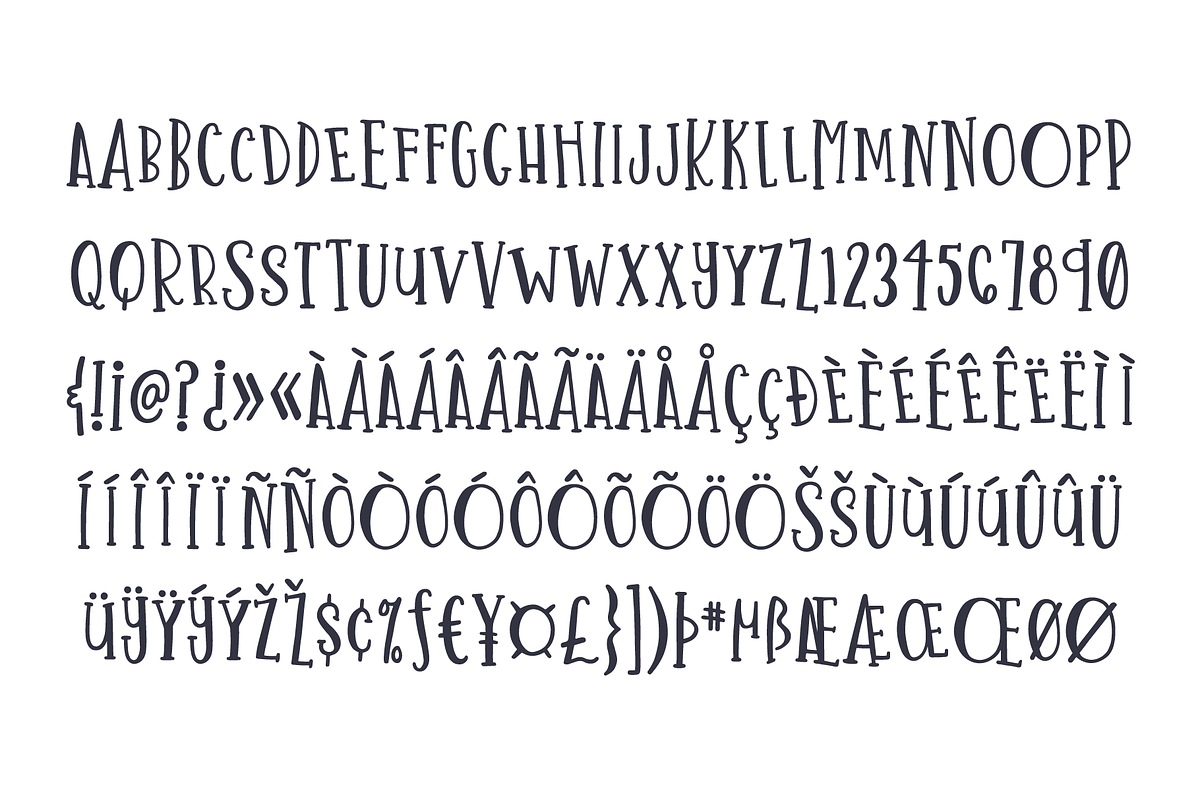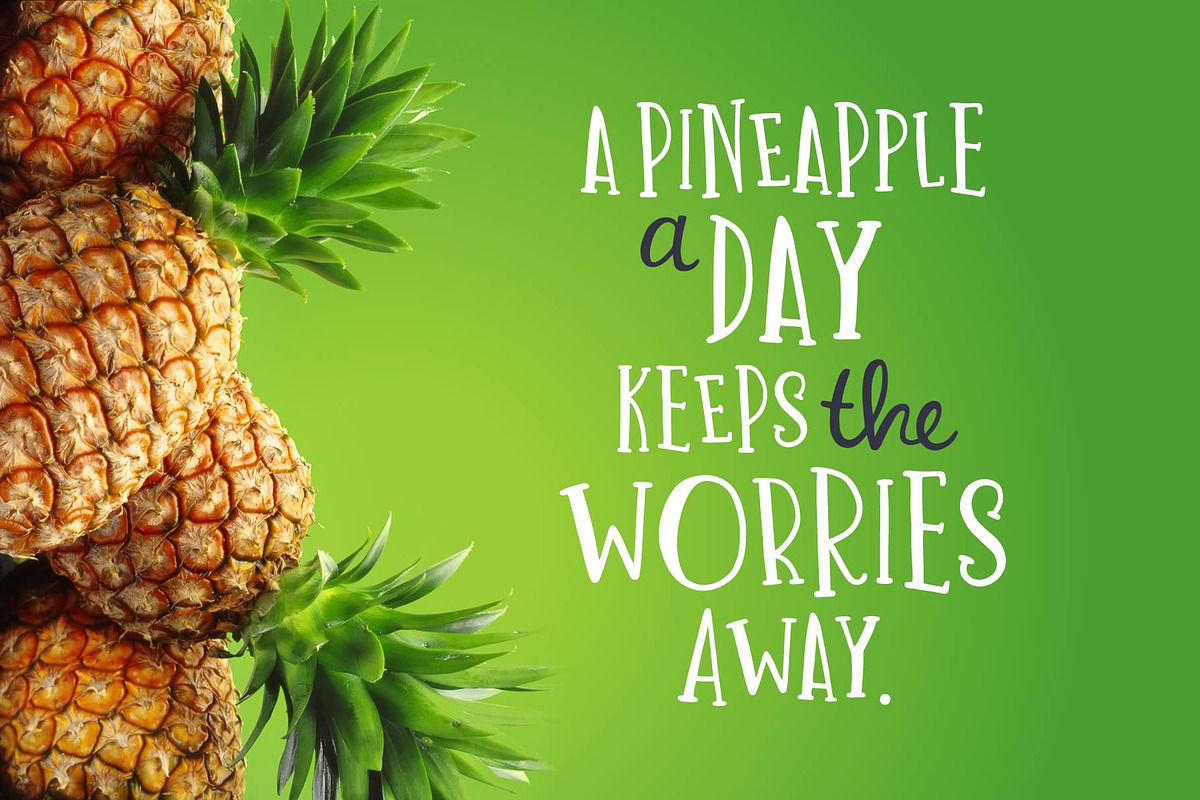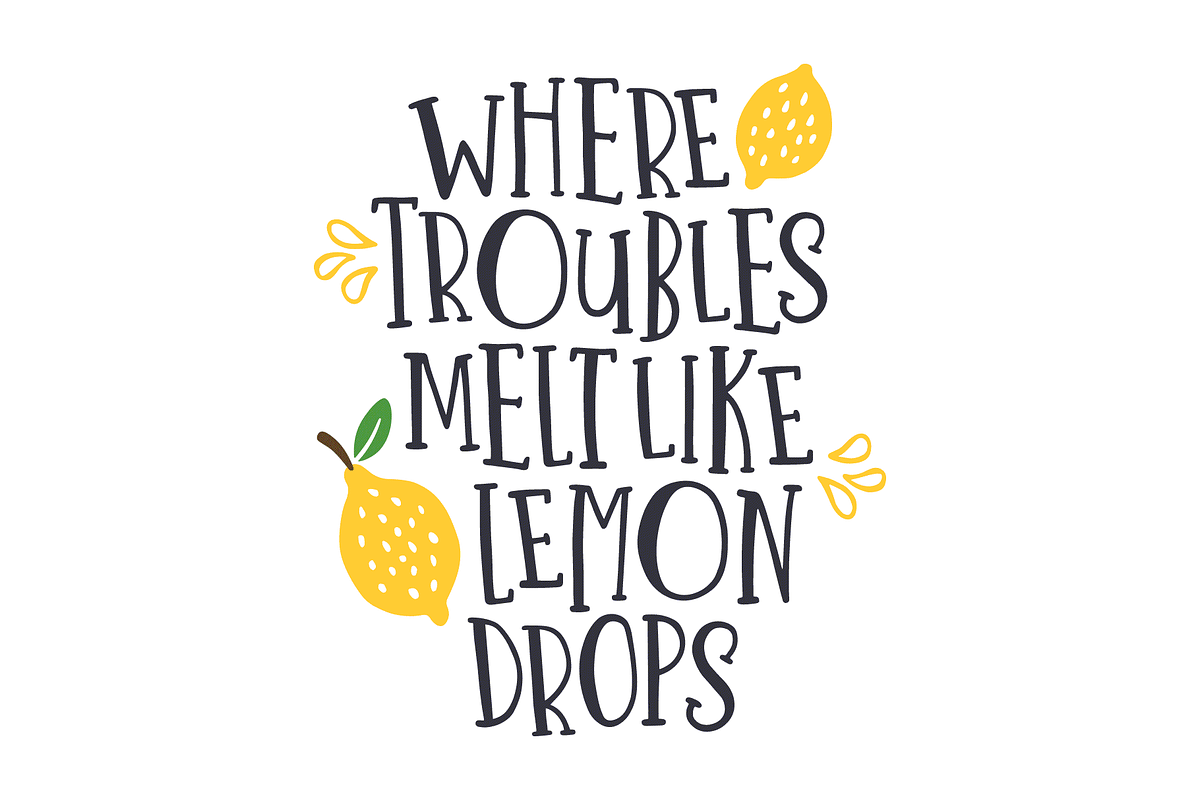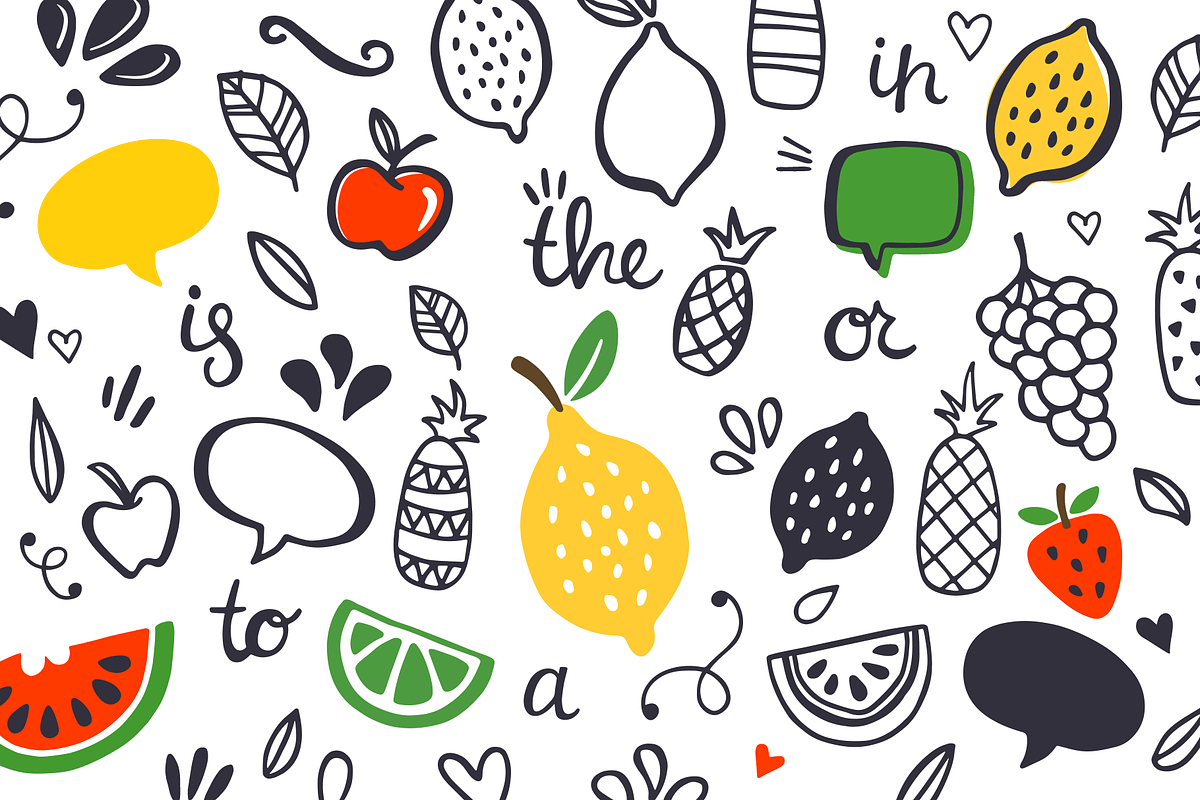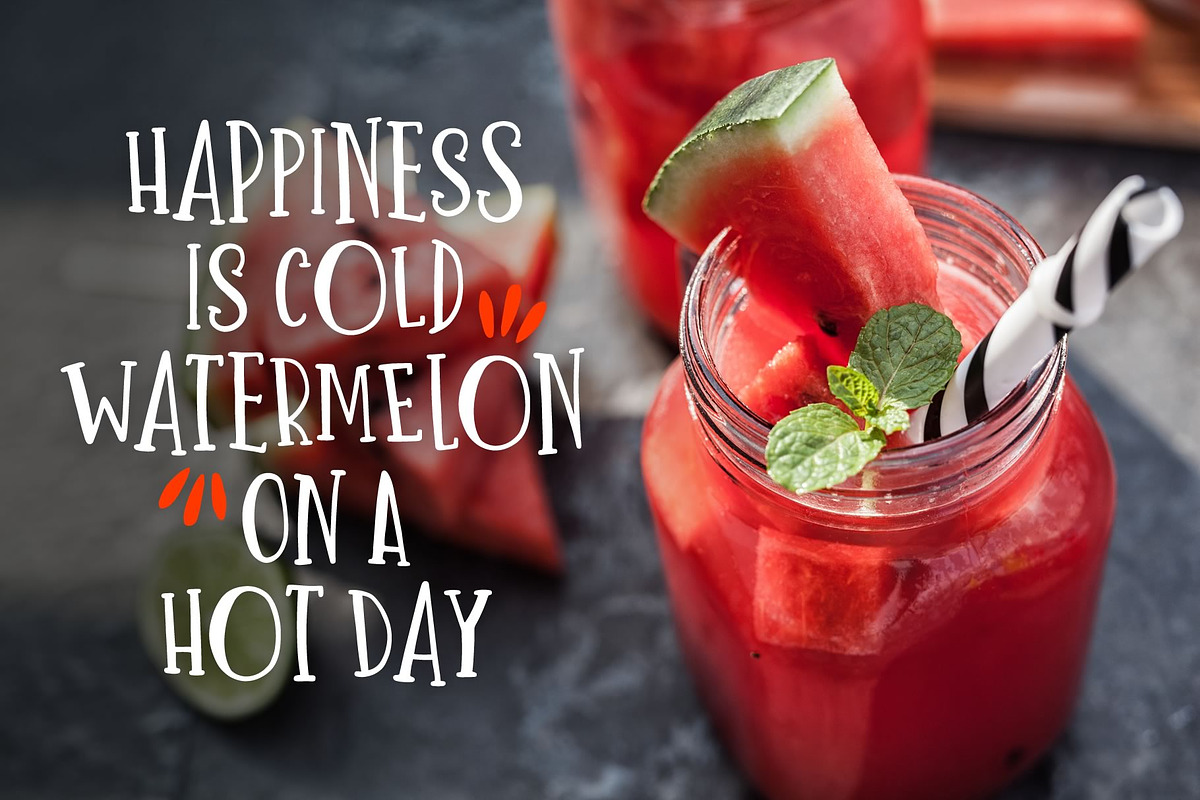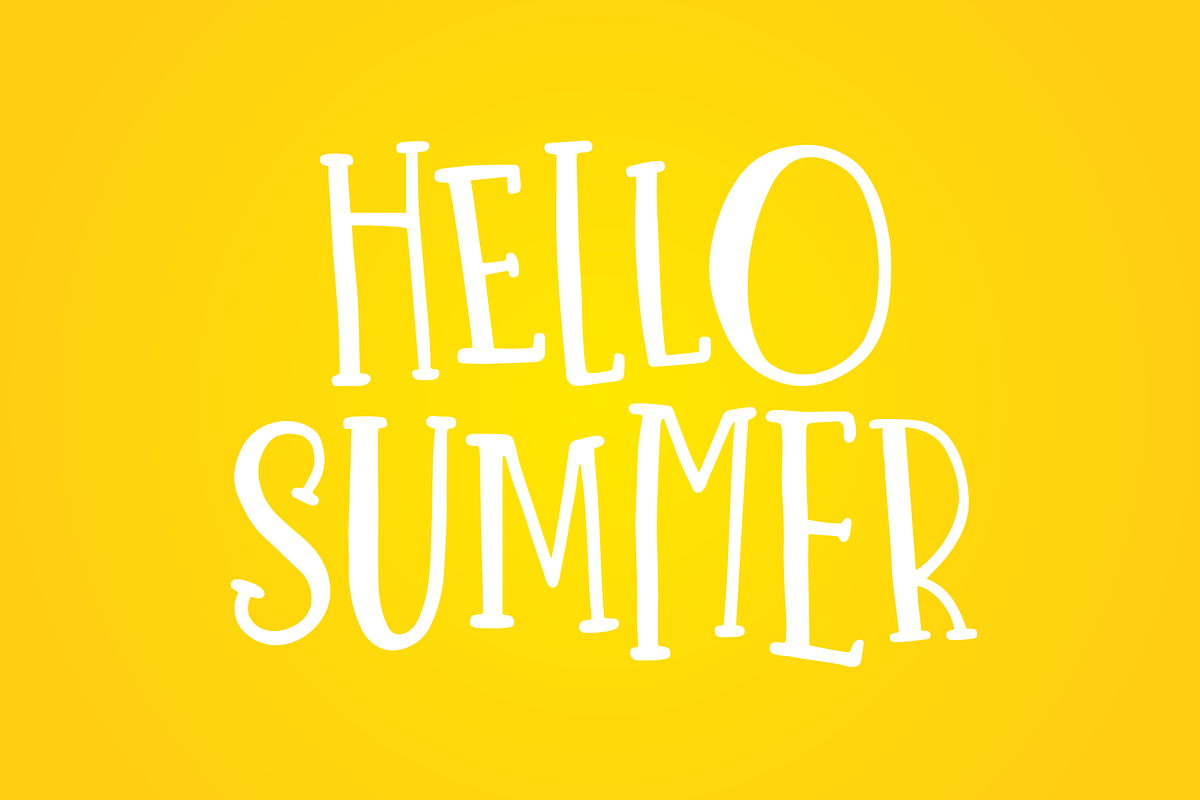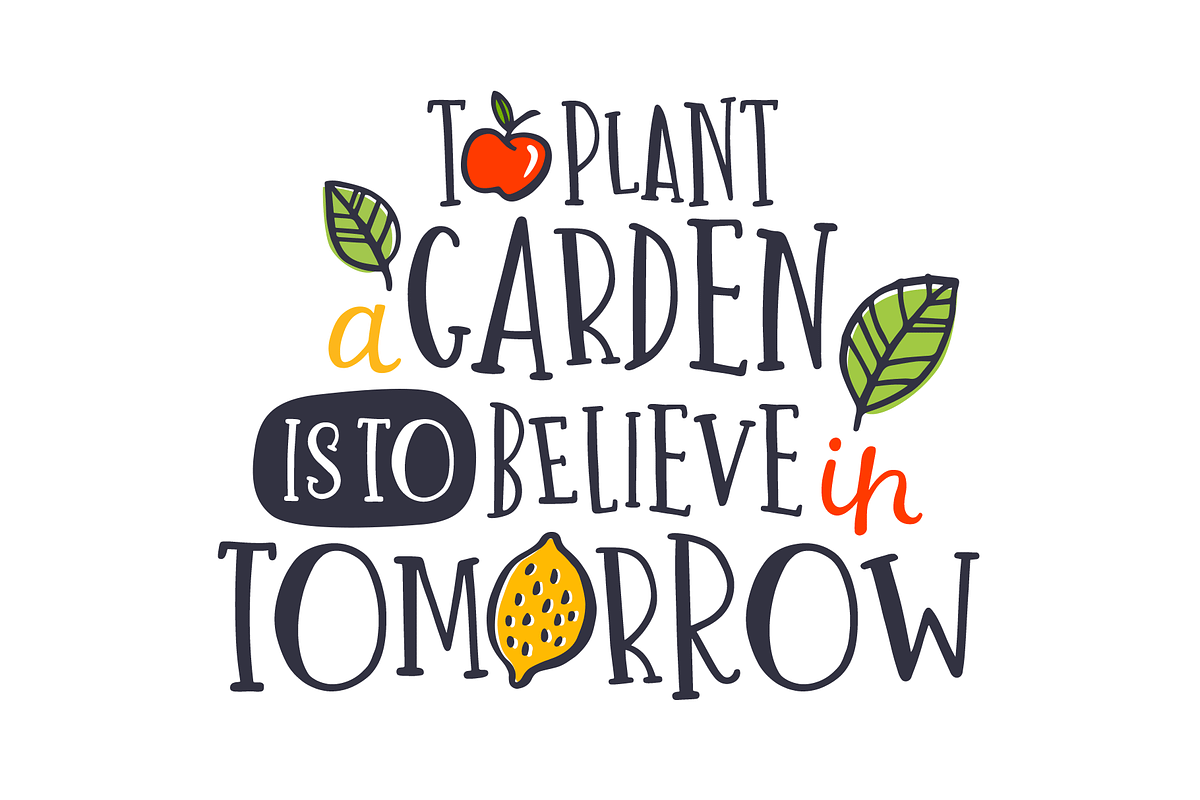
One in a Melon Font + Doodles!
One in a Melon is a light, fun, and bouncy font that is perfect for all your summer projects. Also included is a set of fruit doodles, swashes, and catchwords in .png .ai and .psd format.
- One in a Melon Regular